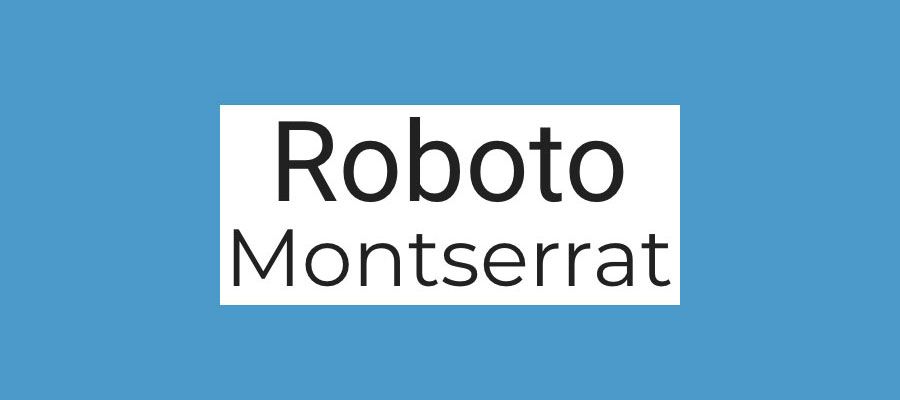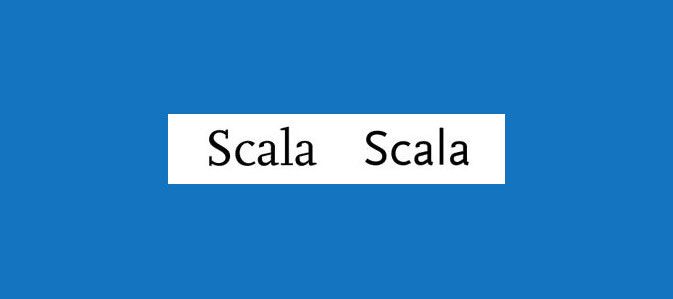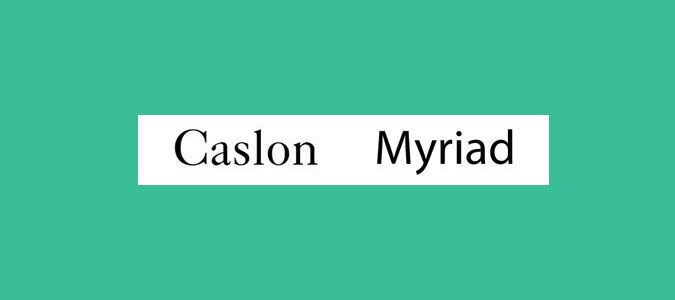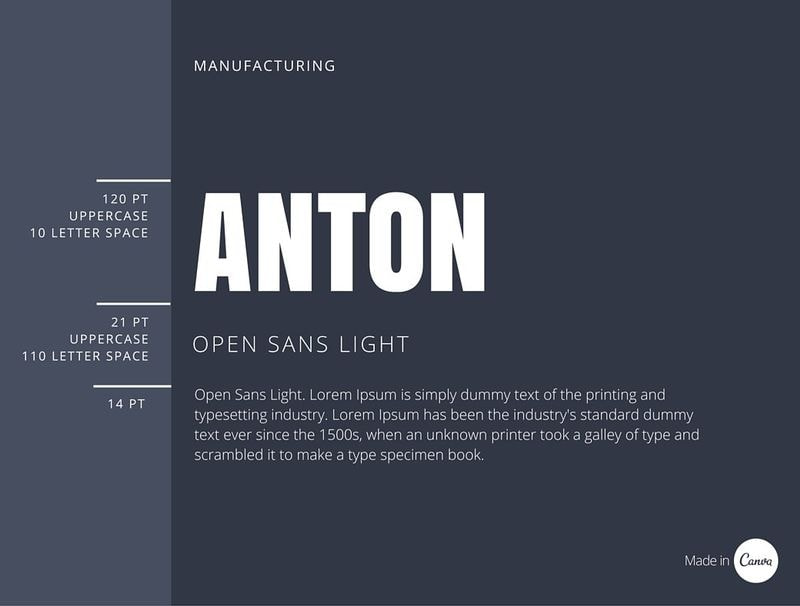
15+ San Serif Font Pairing SVG File. Don't make the mistake of pairing fonts that simply aren't meant to go your best bet is to pair a distinct font with a more neutral one. As a designer, the important thing is to establish a clear hierarchy. In the article below we explain the basics of these font pairs are perfect if you are trying to create your next logo, presentation, infographic, or anything else you'd like to design. Typefaces will generally conflict if they are too similar: You can use these fonts to create custom styles. Just follow a few guidelines as follows serif fonts have small decorative lines or embellishments at the ends of characters, while sans serif fjalla one is a san serif font that's useful in a variety of sizes. In this video, i will show you free font combinations of serif and sans serif fonts from google fonts. But picking great fonts can seem like an impossible dark art for most people. Finding your perfect font match is not impossible. In the example above, blackjack, a script font, is combined with another script font. I will show you 10 beautiful font pairs which you can. Traditionally, this involves pairing a serif with a sans serif. Great font pairings are essential to great design. Another key to pairing font is recognizing that each font has a personality and a mood. Google fonts now supports variable fonts.
Font Combinations That Look Good On Websites. But picking great fonts can seem like an impossible dark art for most people. Great font pairings are essential to great design. You can use these fonts to create custom styles. In the example above, blackjack, a script font, is combined with another script font. Another key to pairing font is recognizing that each font has a personality and a mood. Finding your perfect font match is not impossible. As a designer, the important thing is to establish a clear hierarchy. Traditionally, this involves pairing a serif with a sans serif. Just follow a few guidelines as follows serif fonts have small decorative lines or embellishments at the ends of characters, while sans serif fjalla one is a san serif font that's useful in a variety of sizes. Typefaces will generally conflict if they are too similar: I will show you 10 beautiful font pairs which you can. Google fonts now supports variable fonts. In this video, i will show you free font combinations of serif and sans serif fonts from google fonts. In the article below we explain the basics of these font pairs are perfect if you are trying to create your next logo, presentation, infographic, or anything else you'd like to design. Don't make the mistake of pairing fonts that simply aren't meant to go your best bet is to pair a distinct font with a more neutral one.
News related to fontjoy and deep learning, a few times a year. Montserrat, one of my favorite san serif fonts. Just follow a few guidelines as follows serif fonts have small decorative lines or embellishments at the ends of characters, while sans serif fjalla one is a san serif font that's useful in a variety of sizes. Font name newest most downloads. Font pairing • april • macarons & mimosas. See how it works and get a design: As a designer, the important thing is to establish a clear hierarchy.
San serif muli membuat font teks tubuh yang sempurna, dan itu bersahaja estetika berarti pasangan baik dengan berbagai font judul: Mix and match different fonts for the perfect pairing. Merriweather is a serif google font. Archive of freely downloadable fonts. Based on font usage data on typewolf, as well as site submissions designers have been sending me lately, these are the 10 fonts that i predict will be. News related to fontjoy and deep learning, a few times a year. Great font pairings start by understanding the different families of type (serif, slab, sans serif, script, and handwritten) well enough to combine them. Finding your perfect font match is not impossible. To help you find font pairings, we organized them in two ways: Fontjoy helps designers choose the best font combinations. You can use these fonts to create custom styles. Demo donationware free free for personal use public domain, gpl, ofl shareware. Here's a brief explanation of each of these moods: View font pairs for merriweather. Traditionally, this involves pairing a serif with a sans serif. Choosing the proper font combination will give you a luxurious, modern, traditional, or feminine feel. Font pairing • april • macarons & mimosas. I will show you 10 beautiful font pairs which you can. Tidak menemukan apa yang anda cari dalam daftar kami? A strong font pairing is like a good relationship. Don't make the mistake of pairing fonts that simply aren't meant to go your best bet is to pair a distinct font with a more neutral one. Feels like it was made for the 21st century, and wouldn't make sense. San serif muli membuat font teks tubuh yang sempurna, dan itu bersahaja estetika berarti pasangan baik dengan berbagai font judul: The fonts need to share some basic commonalities, while also preserving their sense of individuality. In this video, i will show you free font combinations of serif and sans serif fonts from google fonts. None of the current answers including the accepted one will use apple's san francisco font on systems that don't have it installed as the system font. Beautiful google font combinations and pairs. Font name newest most downloads. Style (serif, sans serif, both), and mood (any, modern, striking, eccentric, classic, minimal, neutral, warm). Google fonts now supports variable fonts. Browse by alphabetical listing, by style, by author or by popularity.
Ultimate Font Pairing For Building Your Brand. Another key to pairing font is recognizing that each font has a personality and a mood. You can use these fonts to create custom styles. Great font pairings are essential to great design. As a designer, the important thing is to establish a clear hierarchy. In this video, i will show you free font combinations of serif and sans serif fonts from google fonts. Typefaces will generally conflict if they are too similar: Don't make the mistake of pairing fonts that simply aren't meant to go your best bet is to pair a distinct font with a more neutral one. Traditionally, this involves pairing a serif with a sans serif. Finding your perfect font match is not impossible. Just follow a few guidelines as follows serif fonts have small decorative lines or embellishments at the ends of characters, while sans serif fjalla one is a san serif font that's useful in a variety of sizes. In the example above, blackjack, a script font, is combined with another script font. I will show you 10 beautiful font pairs which you can. But picking great fonts can seem like an impossible dark art for most people. Google fonts now supports variable fonts. In the article below we explain the basics of these font pairs are perfect if you are trying to create your next logo, presentation, infographic, or anything else you'd like to design.
30 Free Font Pairing Suggestions For Your Website Colormelon. Another key to pairing font is recognizing that each font has a personality and a mood. Don't make the mistake of pairing fonts that simply aren't meant to go your best bet is to pair a distinct font with a more neutral one. Just follow a few guidelines as follows serif fonts have small decorative lines or embellishments at the ends of characters, while sans serif fjalla one is a san serif font that's useful in a variety of sizes. Typefaces will generally conflict if they are too similar: As a designer, the important thing is to establish a clear hierarchy. Google fonts now supports variable fonts. In this video, i will show you free font combinations of serif and sans serif fonts from google fonts. In the example above, blackjack, a script font, is combined with another script font. Traditionally, this involves pairing a serif with a sans serif. Finding your perfect font match is not impossible. But picking great fonts can seem like an impossible dark art for most people. In the article below we explain the basics of these font pairs are perfect if you are trying to create your next logo, presentation, infographic, or anything else you'd like to design. You can use these fonts to create custom styles. Great font pairings are essential to great design. I will show you 10 beautiful font pairs which you can.
Feels like it was made for the 21st century, and wouldn't make sense.
30 Free Font Pairing Suggestions For Your Website Colormelon. In the article below we explain the basics of these font pairs are perfect if you are trying to create your next logo, presentation, infographic, or anything else you'd like to design. You can use these fonts to create custom styles. I will show you 10 beautiful font pairs which you can. Great font pairings are essential to great design. Finding your perfect font match is not impossible. Traditionally, this involves pairing a serif with a sans serif. Google fonts now supports variable fonts. Don't make the mistake of pairing fonts that simply aren't meant to go your best bet is to pair a distinct font with a more neutral one. Another key to pairing font is recognizing that each font has a personality and a mood. In this video, i will show you free font combinations of serif and sans serif fonts from google fonts. In the example above, blackjack, a script font, is combined with another script font. Just follow a few guidelines as follows serif fonts have small decorative lines or embellishments at the ends of characters, while sans serif fjalla one is a san serif font that's useful in a variety of sizes. As a designer, the important thing is to establish a clear hierarchy. Typefaces will generally conflict if they are too similar: But picking great fonts can seem like an impossible dark art for most people.
Helvetica is the most awesome so i want that first, then arial for pc's since hey it's pretty close, then fall back to whatever mcsansserif for crazyputers with like zero normal fonts installed. turns out this is way better
8 Fresh Font Pairings That Will Make Your Audience Trust You Immediately Hoot Design Co Web Design Branding And Marketing In Columbia Mo. Google fonts now supports variable fonts. Don't make the mistake of pairing fonts that simply aren't meant to go your best bet is to pair a distinct font with a more neutral one. Just follow a few guidelines as follows serif fonts have small decorative lines or embellishments at the ends of characters, while sans serif fjalla one is a san serif font that's useful in a variety of sizes. As a designer, the important thing is to establish a clear hierarchy. In this video, i will show you free font combinations of serif and sans serif fonts from google fonts. Great font pairings are essential to great design. You can use these fonts to create custom styles. In the example above, blackjack, a script font, is combined with another script font. In the article below we explain the basics of these font pairs are perfect if you are trying to create your next logo, presentation, infographic, or anything else you'd like to design. Typefaces will generally conflict if they are too similar: Traditionally, this involves pairing a serif with a sans serif. Another key to pairing font is recognizing that each font has a personality and a mood. Finding your perfect font match is not impossible. I will show you 10 beautiful font pairs which you can. But picking great fonts can seem like an impossible dark art for most people.
The Ultimate Free Font Pairing Guide 180 Examples Plus Templates Easil. Great font pairings are essential to great design. In the example above, blackjack, a script font, is combined with another script font. Don't make the mistake of pairing fonts that simply aren't meant to go your best bet is to pair a distinct font with a more neutral one. Typefaces will generally conflict if they are too similar: Another key to pairing font is recognizing that each font has a personality and a mood. Just follow a few guidelines as follows serif fonts have small decorative lines or embellishments at the ends of characters, while sans serif fjalla one is a san serif font that's useful in a variety of sizes. Traditionally, this involves pairing a serif with a sans serif. Finding your perfect font match is not impossible. In the article below we explain the basics of these font pairs are perfect if you are trying to create your next logo, presentation, infographic, or anything else you'd like to design. I will show you 10 beautiful font pairs which you can. In this video, i will show you free font combinations of serif and sans serif fonts from google fonts. But picking great fonts can seem like an impossible dark art for most people. You can use these fonts to create custom styles. Google fonts now supports variable fonts. As a designer, the important thing is to establish a clear hierarchy.
Even if that means we send you elsewhere to get them.
I will show you 10 beautiful font pairs which you can. Great font pairings are essential to great design. Style (serif, sans serif, both), and mood (any, modern, striking, eccentric, classic, minimal, neutral, warm). Just follow a few guidelines as follows serif fonts have small decorative lines or embellishments at the ends of characters, while sans serif fjalla one is a san serif font that's useful in a variety of sizes. In the article below we explain the basics of these font pairs are perfect if you are trying to create your next logo, presentation, infographic, or anything else you'd like to design. The best selection of sans serif fonts for windows and macintosh. Typefaces will generally conflict if they are too similar: 99designs review | branding my business. Finding your perfect font match is not impossible. Tidak menemukan apa yang anda cari dalam daftar kami?